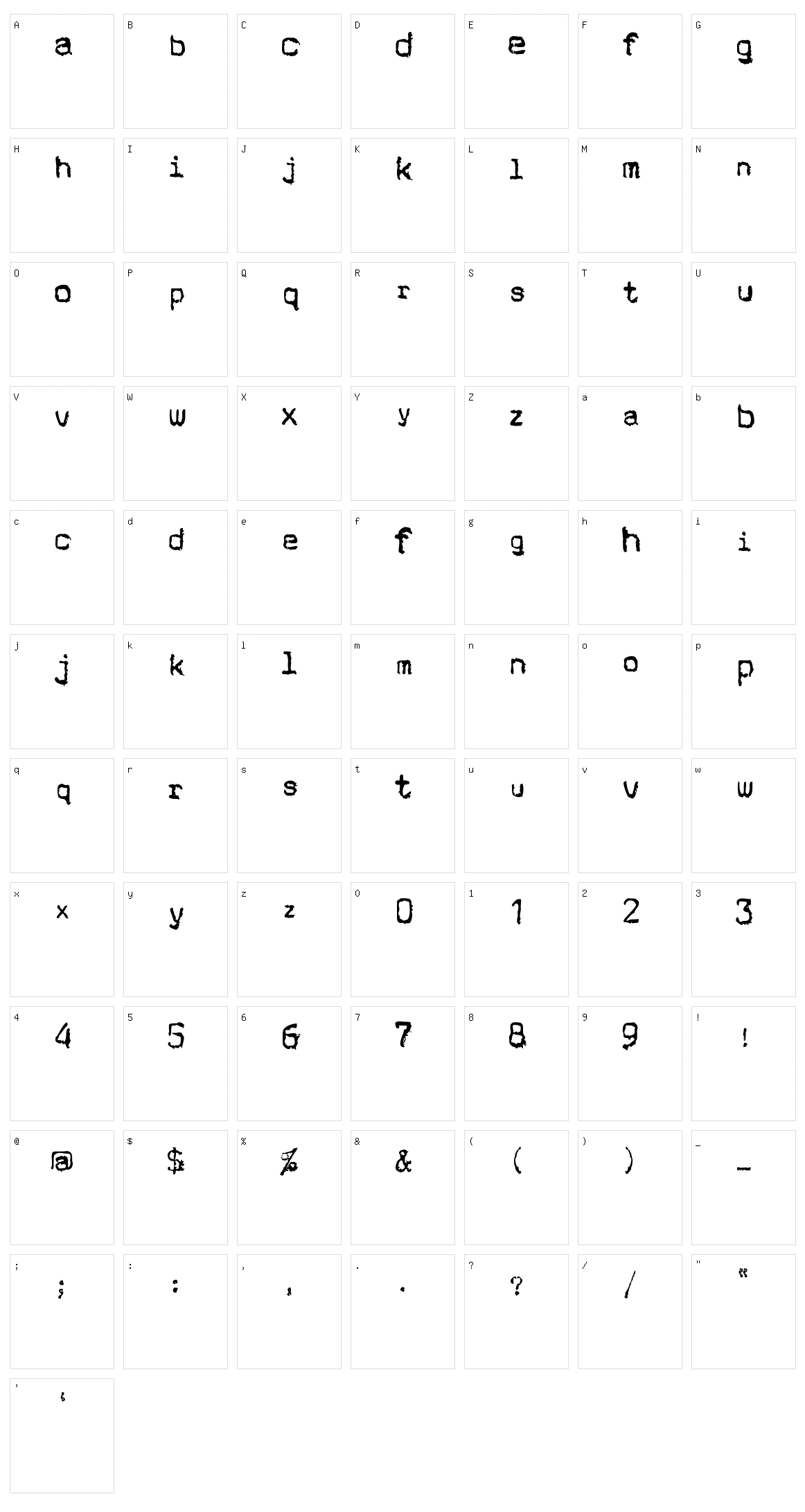
The free font Cholo Sperry Rand R20 is carefully designed by MatreroG, showcasing a thoughtful balance of creativity and usability and falls under the Typewriter font style. When you download the ZIP file, it contains only 93.25 KB of font files, making it lightweight and quick to download. Please review the license details below to understand permitted usage and distribution rights. If license information is not available, we recommend using this font for personal projects only or contacting the author directly for commercial usage permissions.
"Cholo Sperry Rand R20, Micro" es una fuente gratuita